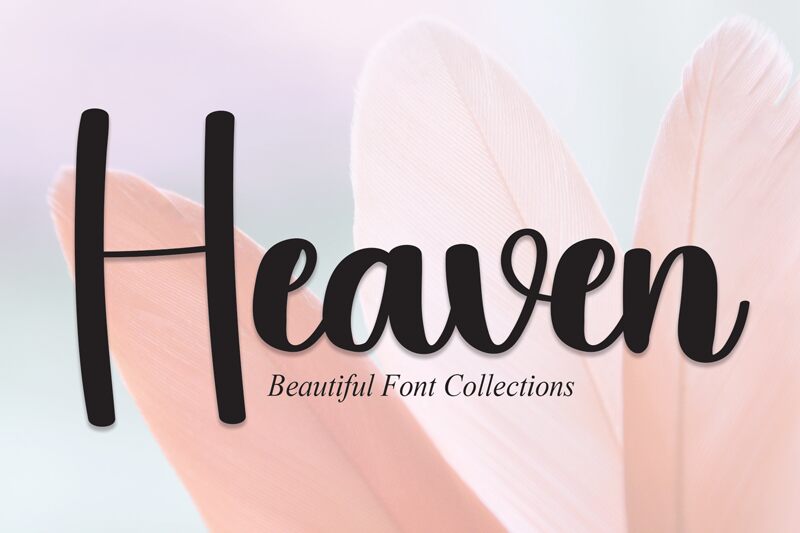
Heaven
Heaven, designed by Scratchones, is a handwritten font that exudes a sense of effortless elegance and personal touch. With its fluid curves and natural variability in stroke weight, Heaven captures the charm of traditional penmanship while maintaining a clean and modern aesthetic. The gentle flow of the letters makes it aesthetically pleasing, invoking a sense of whimsy and intimacy that is perfect for creative projects requiring a personal, handcrafted feel.
The versatility of Heaven lies in its ability to blend seamlessly into various design contexts—be it wedding invitations, branding materials, or editorial layouts. Its handwritten style adds a level of authenticity that can enrich storytelling elements in graphic designs or digital media. Whether you're looking to convey warmth in personalized stationery or add character to promotional materials, Heaven's inviting appearance ensures your project will stand out with both style and substance.